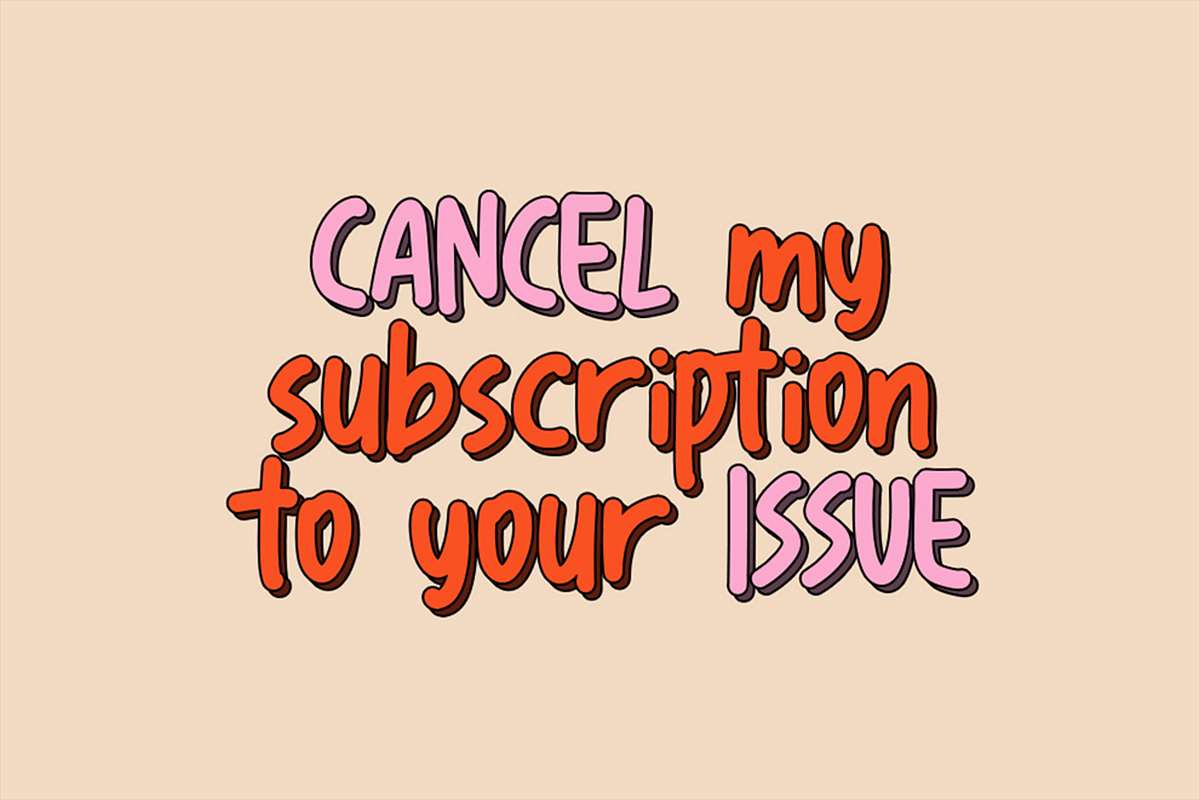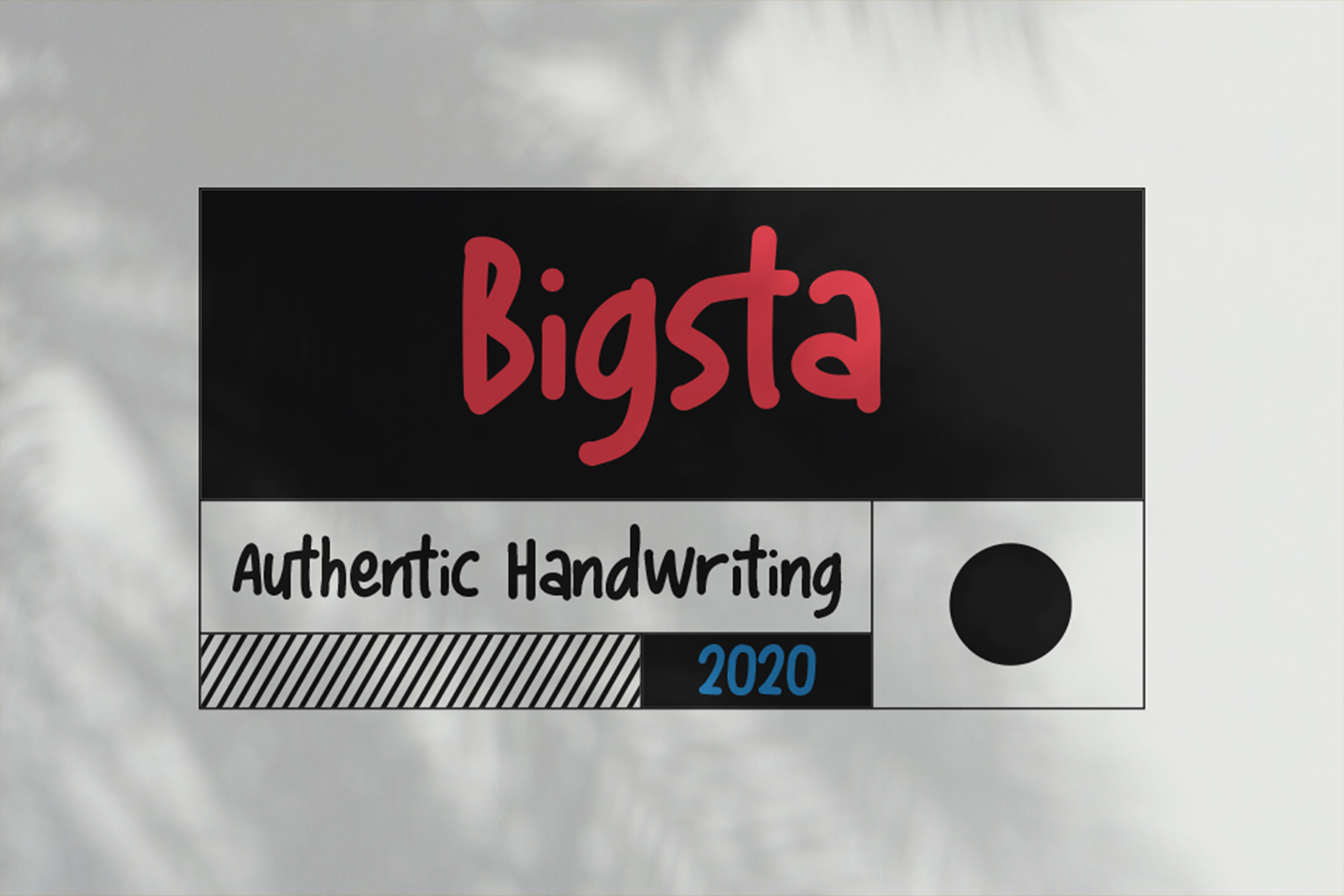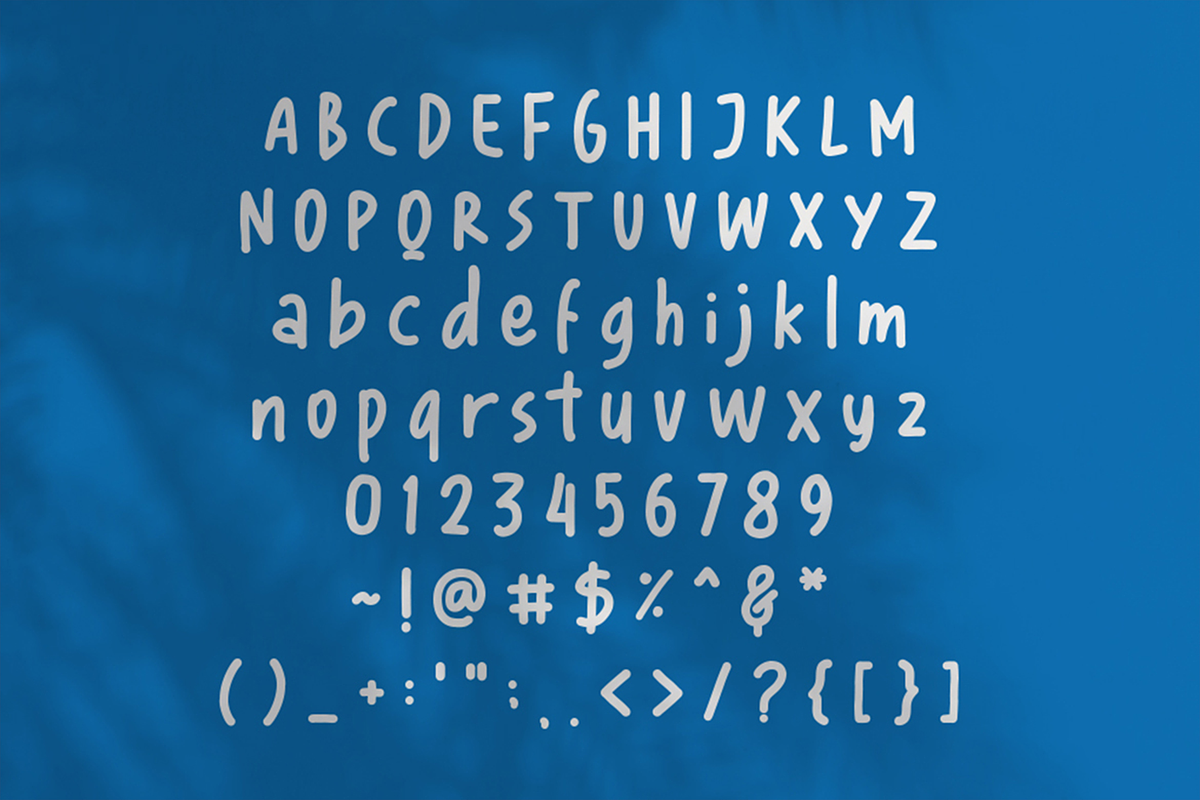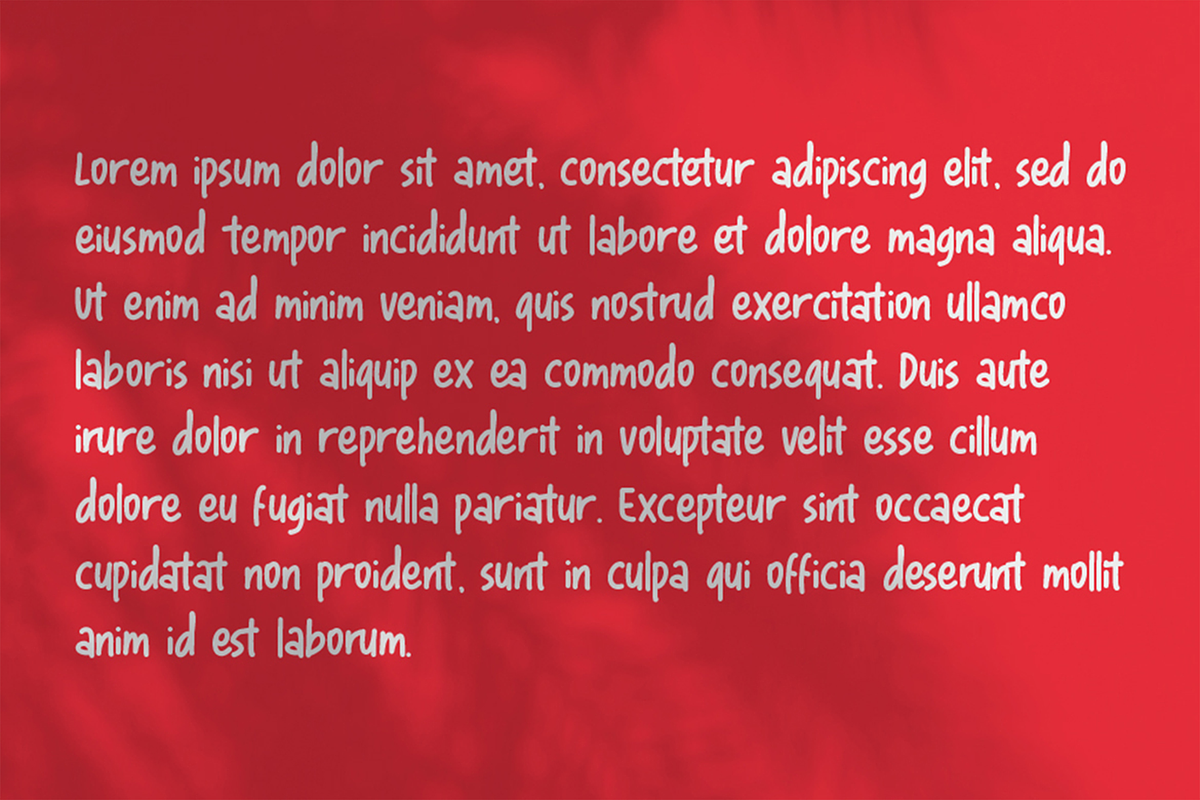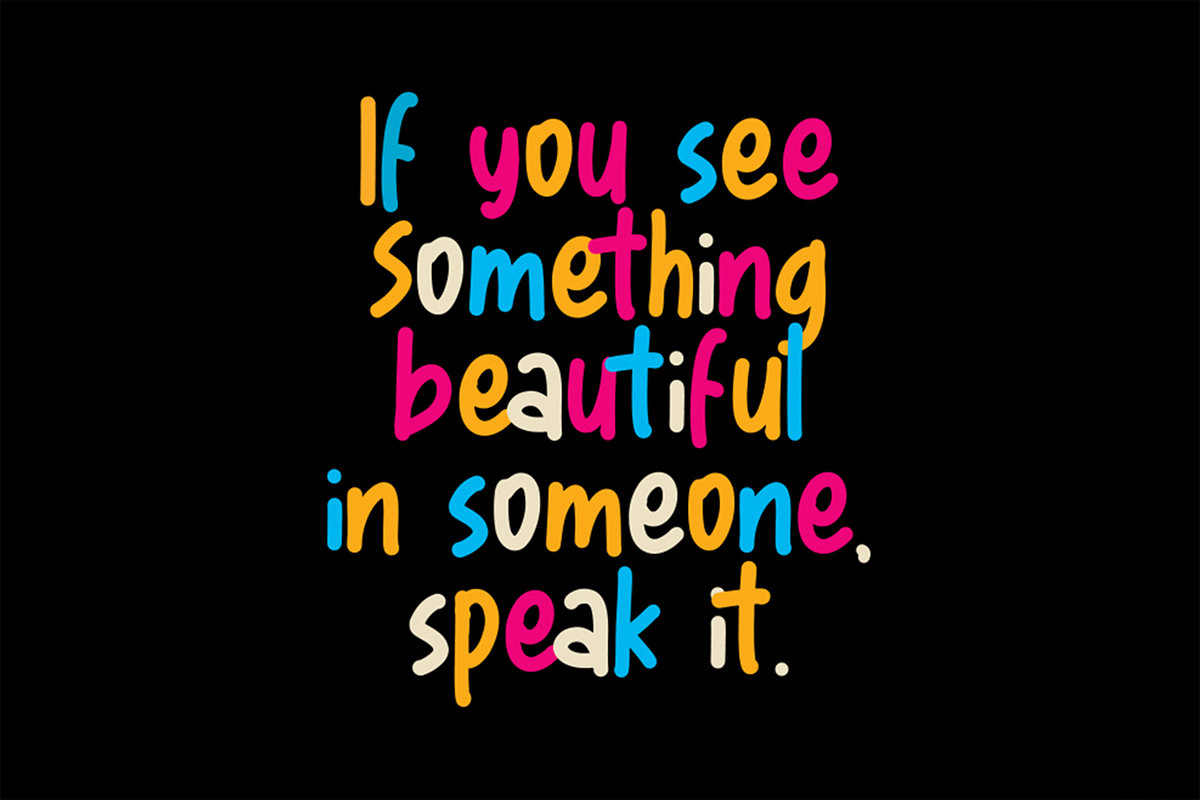
Bigsta - Handwritten Journal Font
Reminiscing the honest personal story between the journal. Just like your written diary, its a heart to heart relationship. That’s what Bigsta came from. Personalize your visual and deliver the message with your inner soul with Bigsta font. Perfectly fit for your visual journal, lookbook, mood board, article, social media content, handcrafted products, etc.